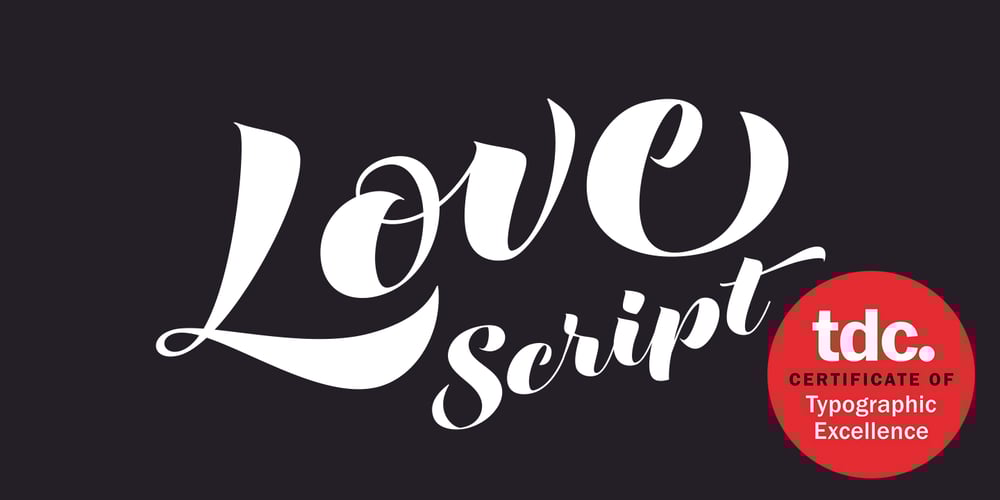
Love Script
Love Script font
Love Script Font Family was designed by Neil Summerour and published by Positype. Love Script contains 1 styles and family package options. Love Script came about as a way to finally answer the requests by individuals to take my brush pen/marker lettering styles and turn them into a typeface. Literally, everything lined up perfectly and there was a renewed impetus to push this genre, this style of lettering I have adapted over the years into what will become a series of brush pen/marker typefaces. The first I chose to complete was a high-contrast variant… I seem to be attracted to high contrast, high energy letters (think Lust, Lust Slim and Lust Script). As I was finalizing everything, I kept saying ‘I love this script’, which ultimately led the christening of the typeface as Love Script. For more fun, visit the Love Script Minisite Designer’s note: for this font to truly sing, be sure you have Contextual Alternates on in your OpenType settings. Hope you love it as much as I do.